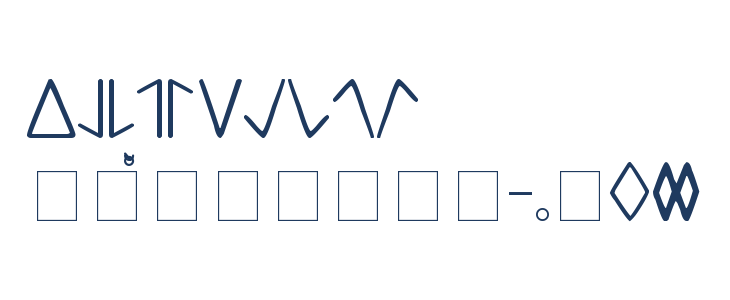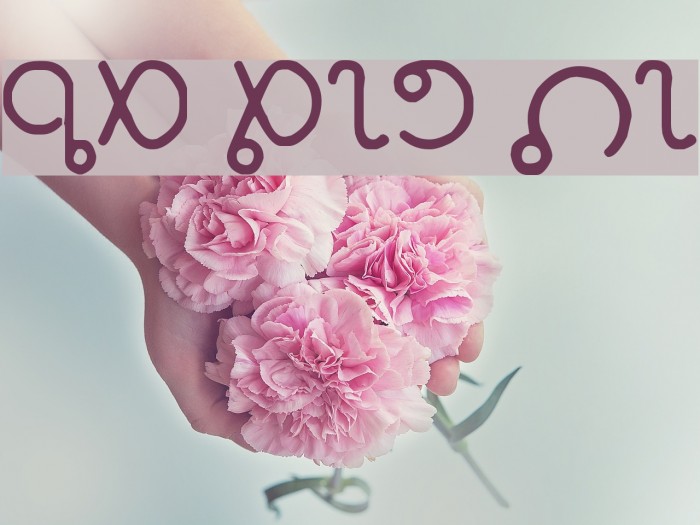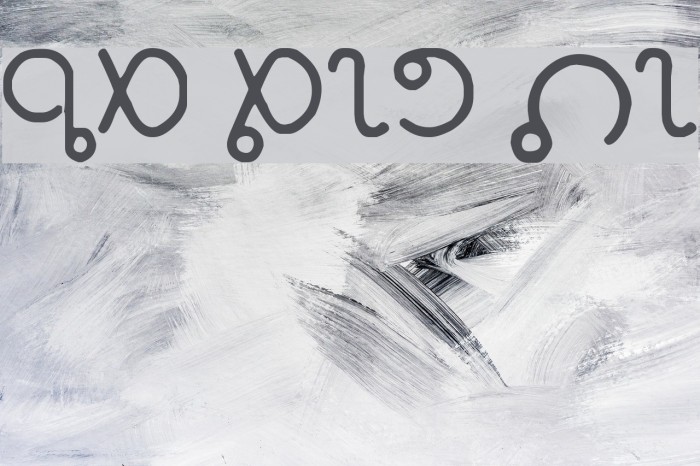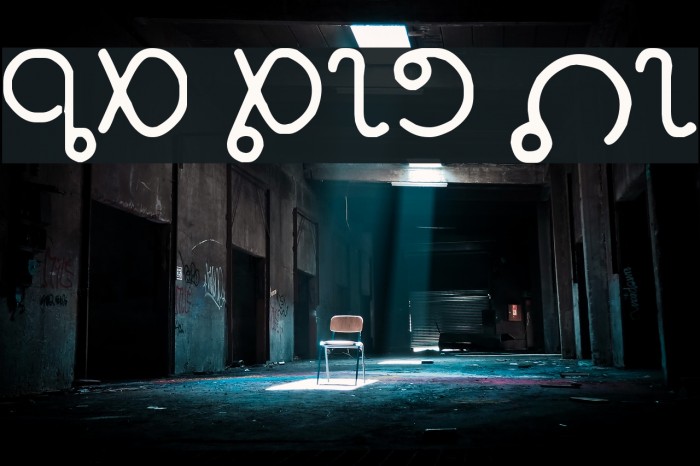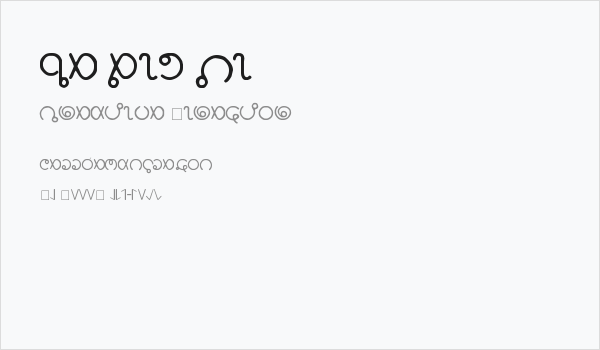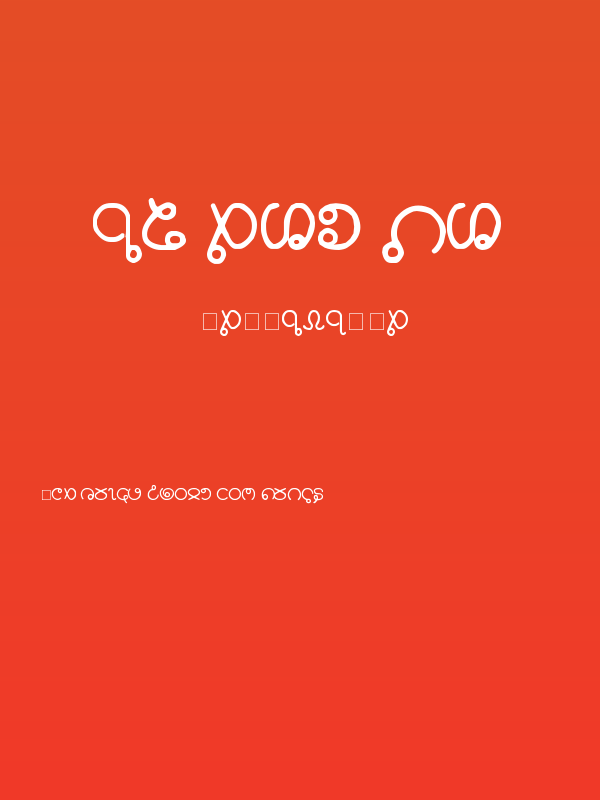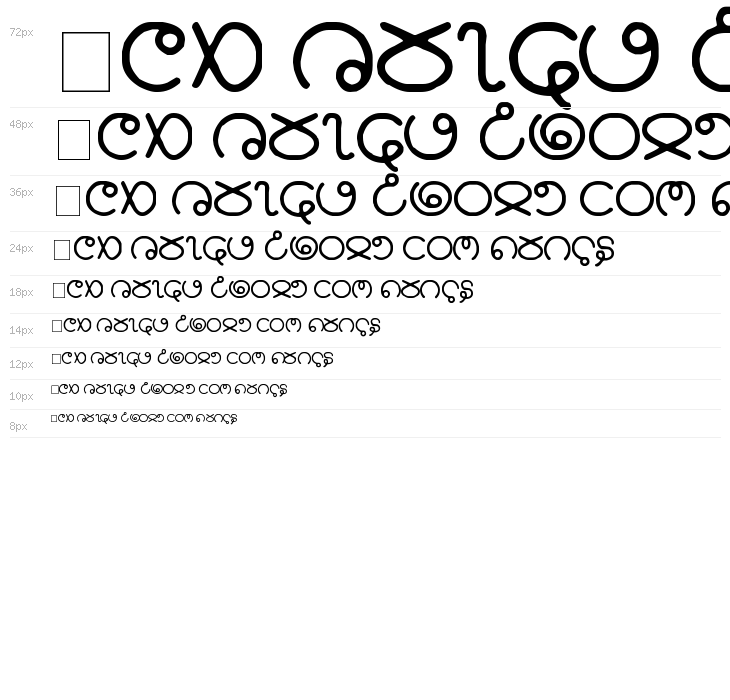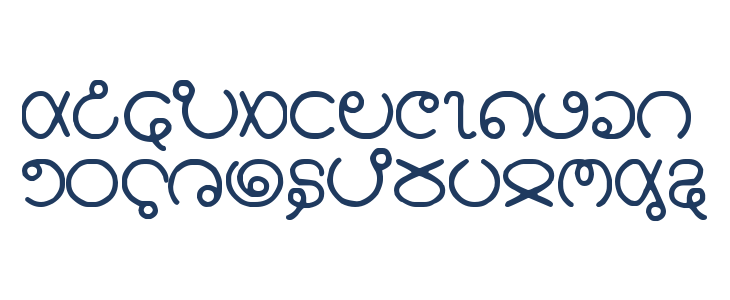
Ge Yin Zi Font
Ge Yin Zi Description
This font features a unique and decorative style with a playful and whimsical appearance. The characters are designed with a combination of curves and loops, giving them a fluid and dynamic look. The strokes are consistent in thickness, providing a balanced and harmonious feel. The font includes a full set of uppercase and lowercase letters, numbers, and a selection of special characters. Its distinct style makes it suitable for creative and artistic projects where a touch of personality is desired.
| Proposed Projects | Ideal for creative projects such as invitations, posters, and artistic branding. |